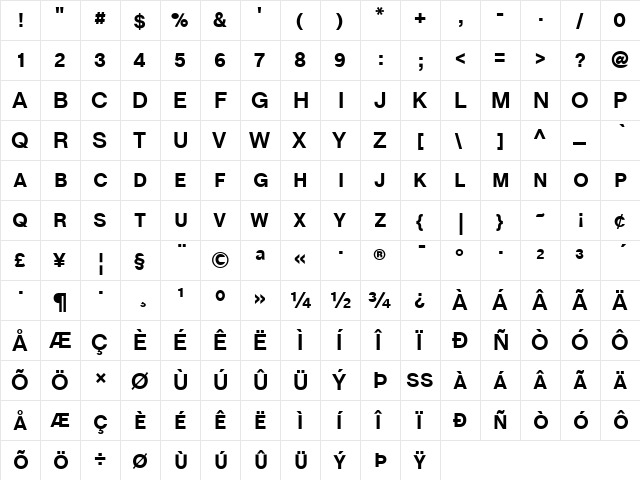
ChaletBookTTSC Bold Font Preview
ChaletBookTTSC Bold
ChaletBookTTSC Bold Font Details
| Foundry | House Industries/Brand Design Co. Inc, |
| Designer | House Industries |
Design Context for ChaletBookTTSC Typeface
ChaletBookTTSC offers clean, dependable letterforms without strong stylistic allegiance, making it a practical choice for designers who need flexibility. The heavy weight commands attention and anchors typographic hierarchies.